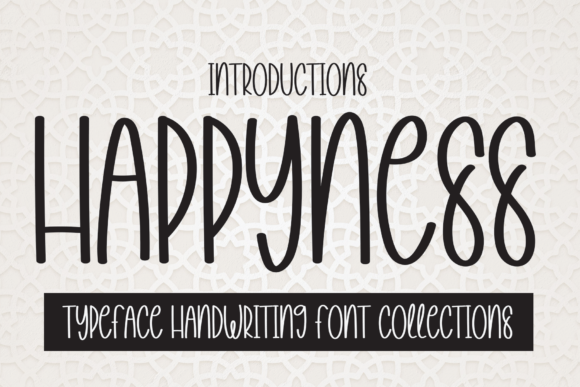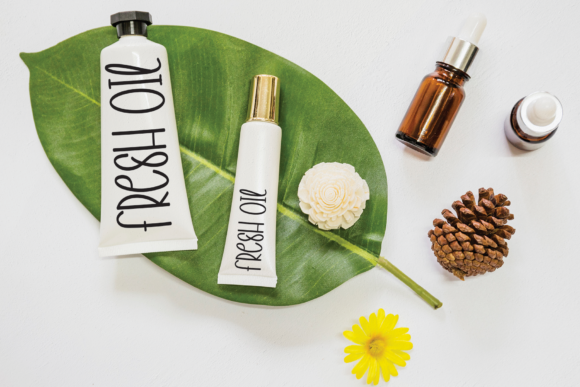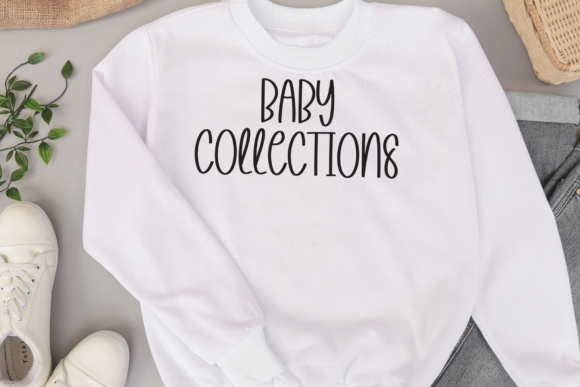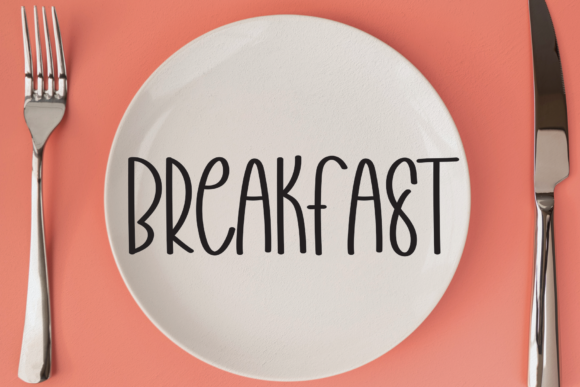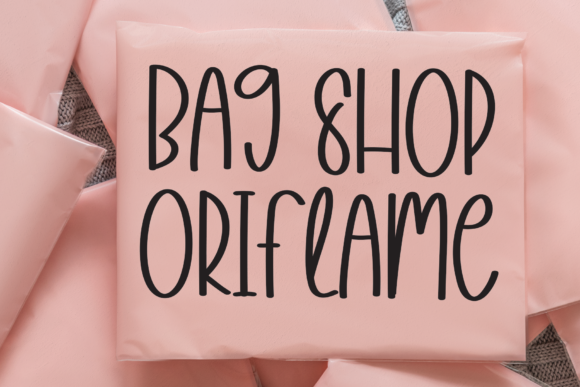
Happyness Font
About Happyness Font
Happyness is a fine and friendly font. Chic and trendy, this font will be great for writing wedding invitations, cards or any other design that may need a personalized touch!